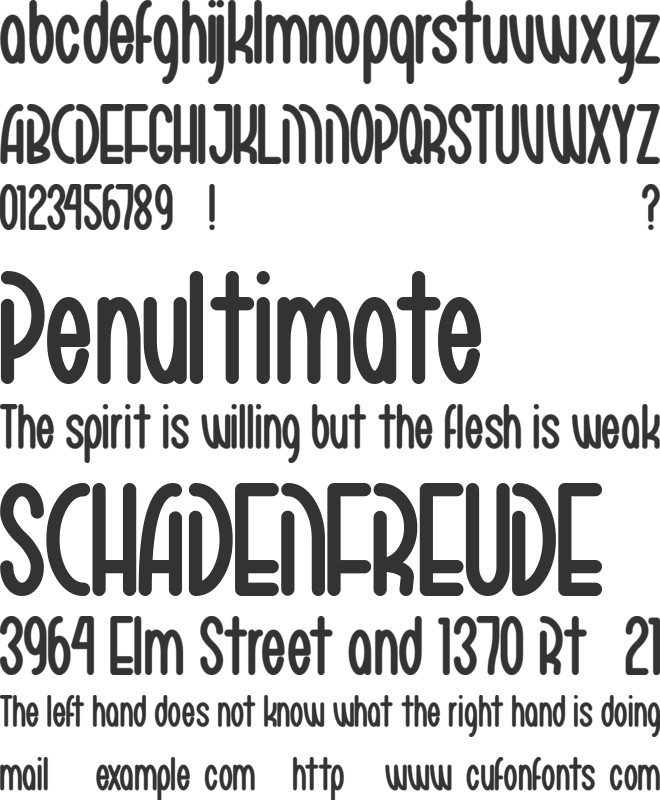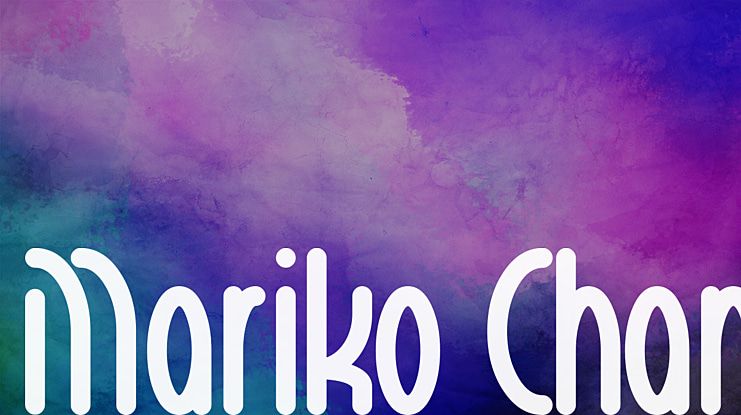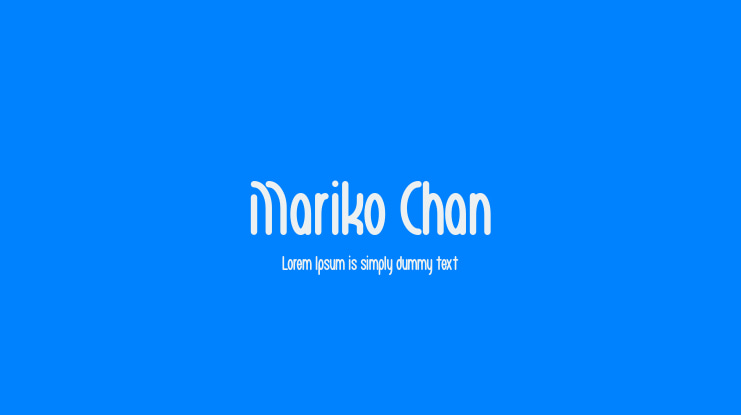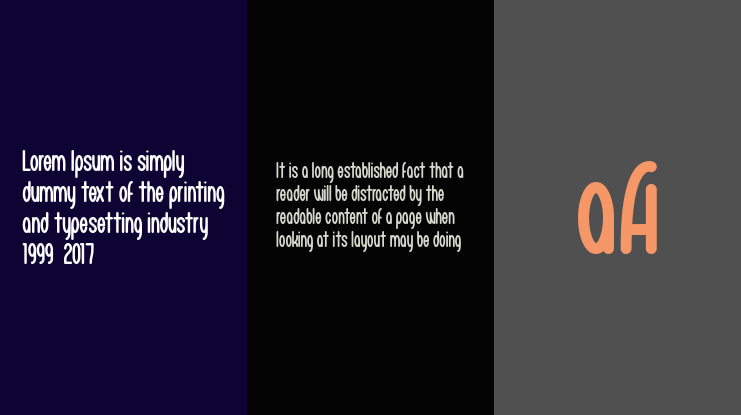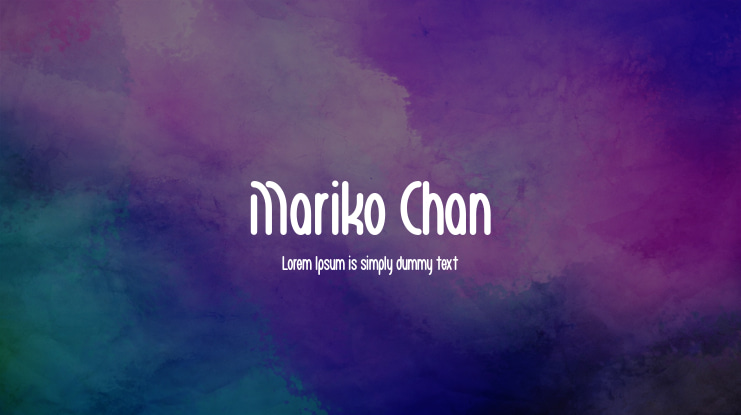
Mariko Chan Font Family
Mariko is my sister's middle name. It is also my aunt's middle name and my second cousin's first name. It's sort of a family name. It is a fairly common name in Japan.
This number and letter is inspired by my family and my Japanese heritage. The Regular font is Bold and great for Titles or Heading Text, while the Thin version looks slightly hand written and compliments the regular version nicely. In combination, the sky is the limit. Enjoy!